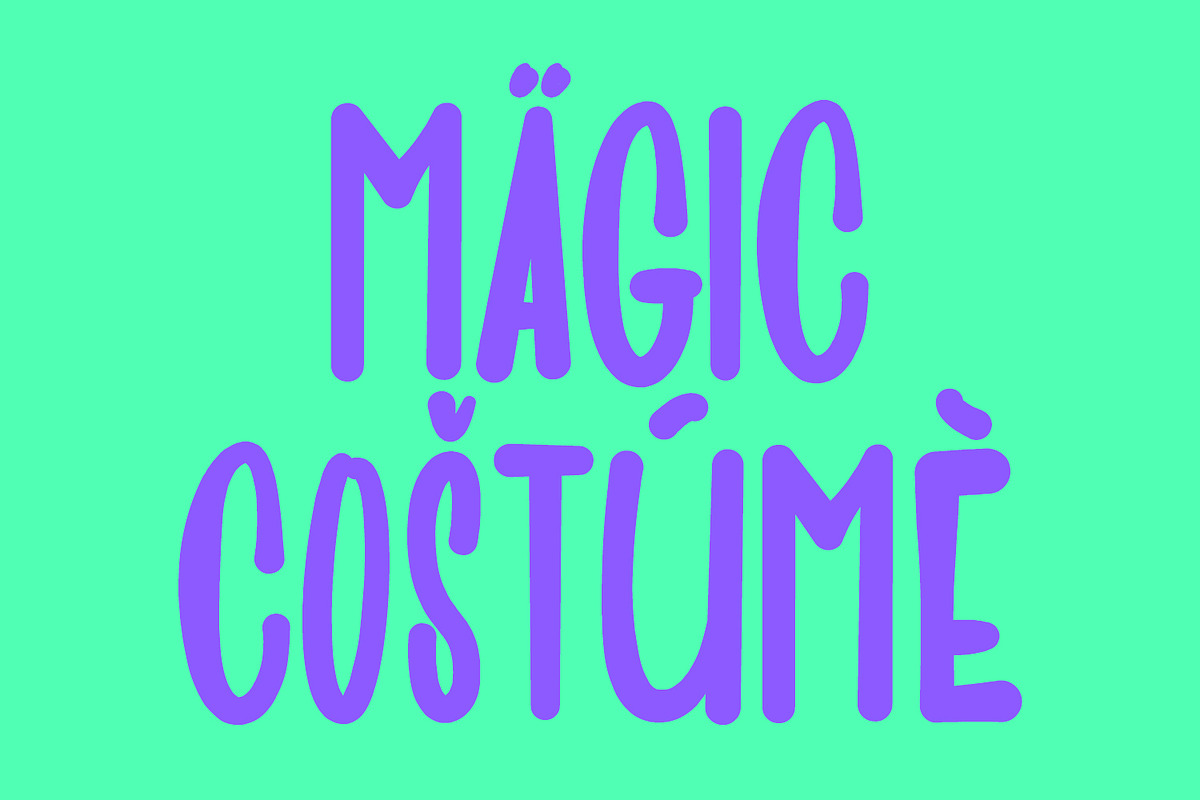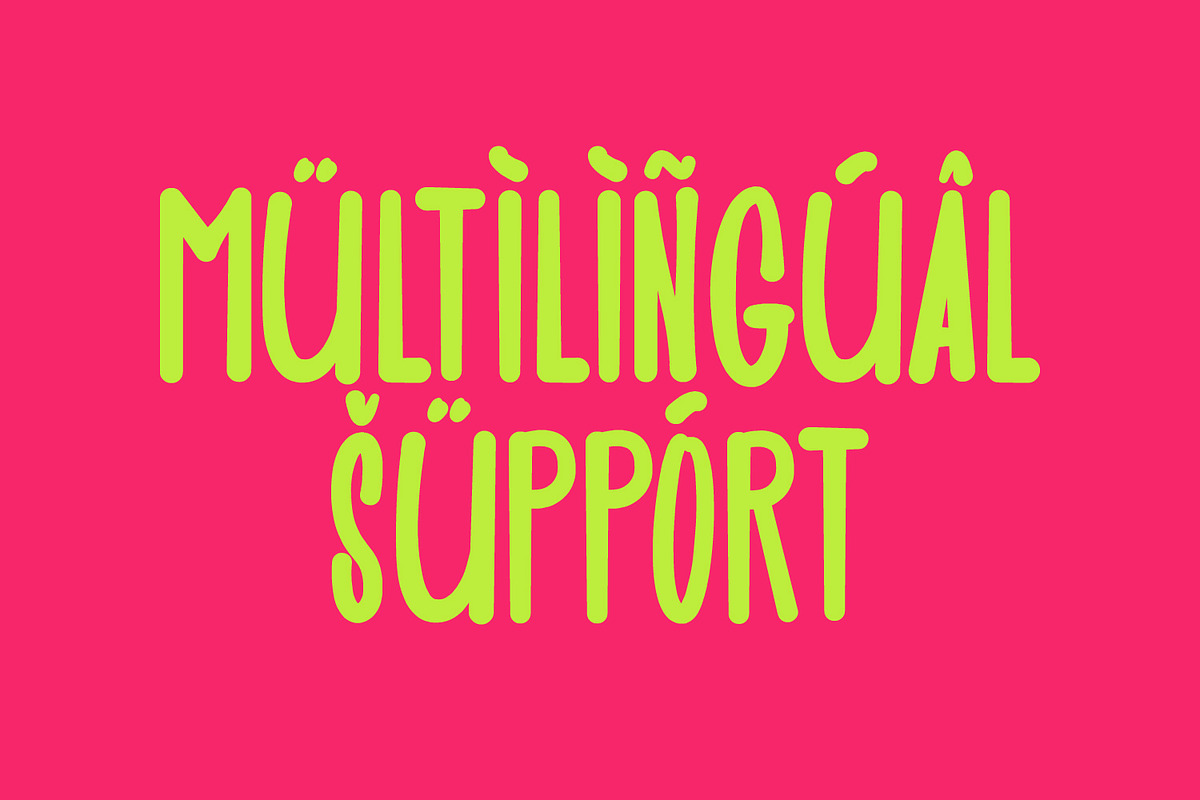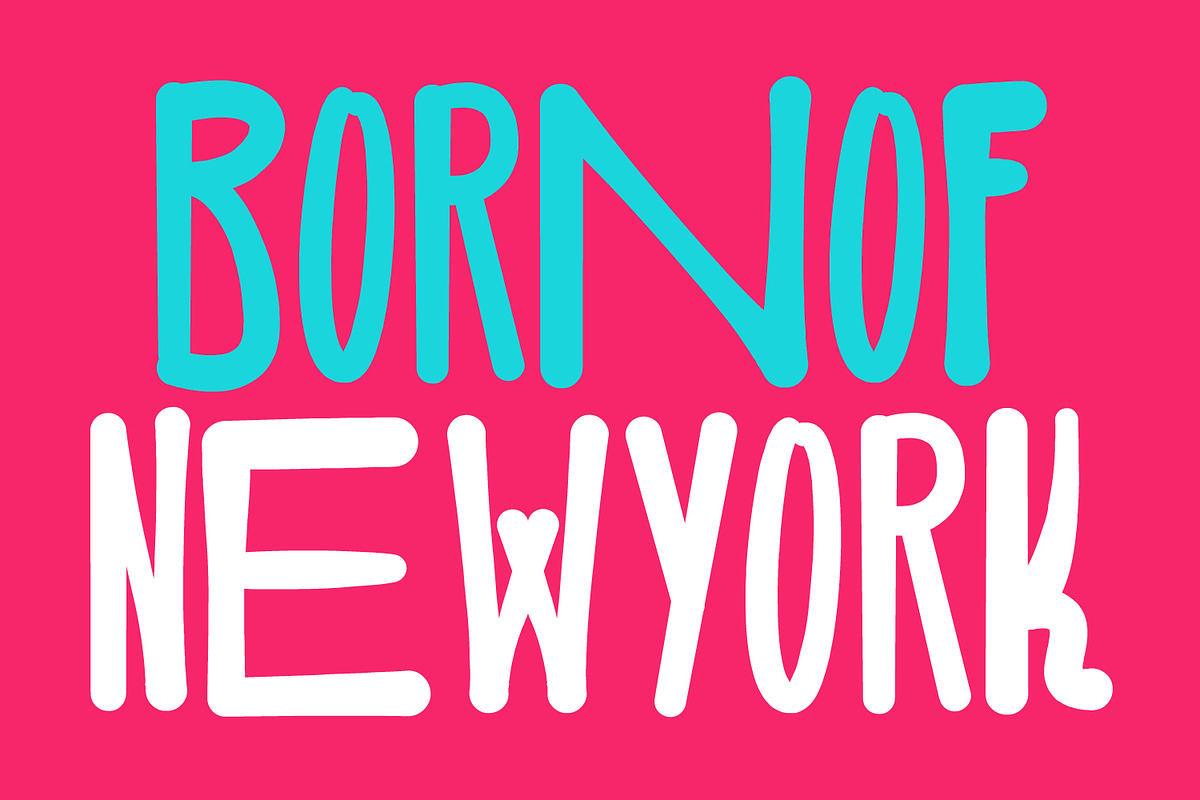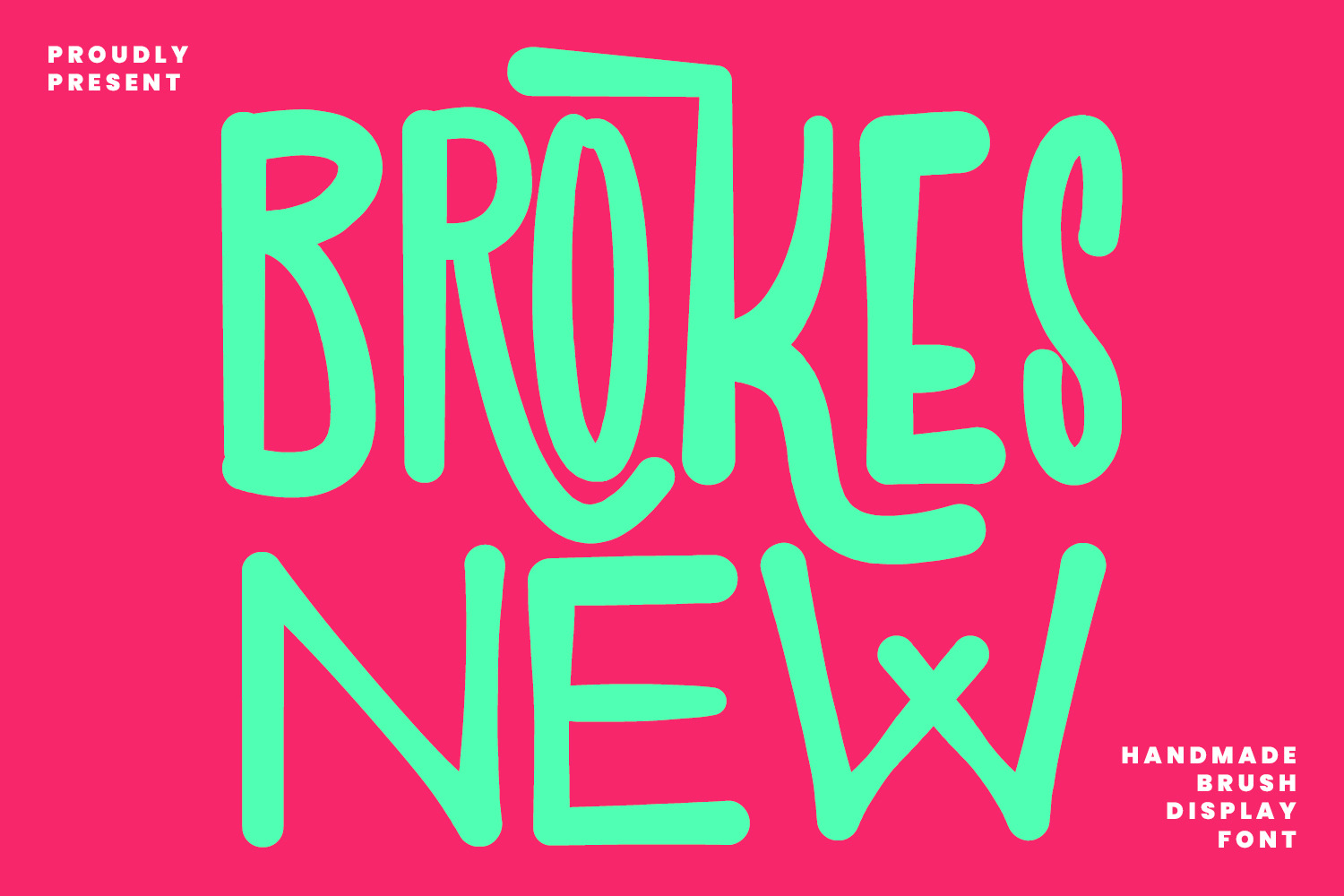
Brokes New Font Display Handmade Bru
Brokes New handmade brush display font, fun character with alternates and ligatures. To give you an extra creative work. Brokes New handmade brush display font support multilingual language.